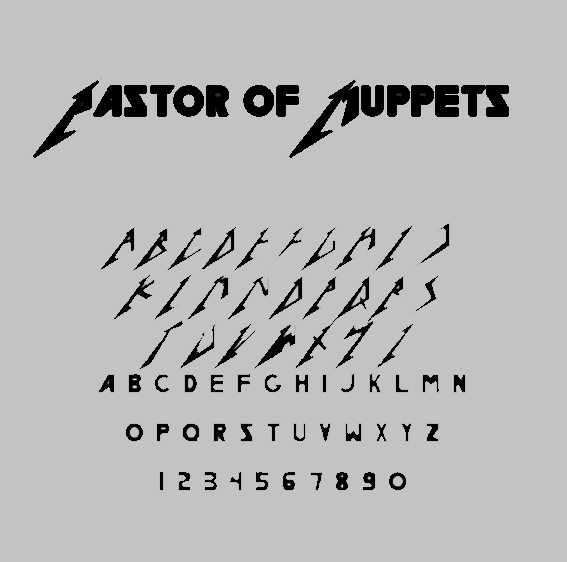
Metallica font is not just a typeface but a representation of the band’s aggressive, powerful, and rebellious spirit itself. This font, recognized for its angular and sharp design, is the best representation of that intense course of action of the heavy metal legends.
It has been the font which was together with the original Metallica logo in the early 1980s since then the band, as well as the font, have gained massive recognition, and is now a cultural icon recognized by music enthusiasts and designers alike.
What is the Metallica Font?
The most famous Metallica logo font, made by James Hetfield, who is the band’s lead singer and rhythm guitarist, appeared in 1981. The typeface used is a customized version of a sans-serif font. The most recognizable parts are the long and pointed letters, especially the “M” and “A,” which are twisted into the shape of lightning, symbolizing the band’s intensive and electrifying shows.
Despite the original metallica letter font not being openly accessible to the public due to its uniqueness to the band, fan-made replicas namely “Pastor of Muppets” and “Metal Lord” have emerged as the most popular among the fans.These versions mimic the original design and are widely used for personal projects and fan art​.
Key Features of Metallica Font
- Sharp and Angular Design: The pointed, elongated letters give the font a fierce and aggressive appearance, symbolizing the band’s intense sound.
- Sans-Serif Base: Despite its customization, the metallica style font is based on a classic sans-serif style, providing clean lines and high readability.
- Monochrome Aesthetic: Often used in black and white, the font maintains a bold, high-contrast look, further emphasizing its power and dominance.
- Customization: Many fan-made versions offer slight variations, including 3D effects, making it versatile for different creative applications​.
Applications of Metallica Font
The Metallica logo font has transcended the music industry and is now used in a variety of contexts, including:
- Album and Band Merchandise: T-shirts, hoodies, posters, and even coffee mugs feature the iconic font.
- Event Promotions: Ideal for music festivals, rock concerts, and metal-themed events.
- Fan Art and Tattoos: A favorite among fans looking to display their loyalty and admiration for the band.
- Social Media Graphics: Used in banners, profile headers, and promotional posts related to heavy metal culture​.
Conclusion: Metallica Font
The Metallica font is wonderful not only because it is a design element of the font, but also because it is visual proof of one of the most iconic bands in its kind in the history of music. Its strong, angular design expresses the Metallica’s music that is full of energy, rebellion, and force, thus, it is a forever relevant symbol of heavy metal culture.
Besides being a diehard fan, you can be a designer or, you can just be a person wanting to add a little rock to a project, in any case, the Metallica font provides a powerful and unforgettable choice.